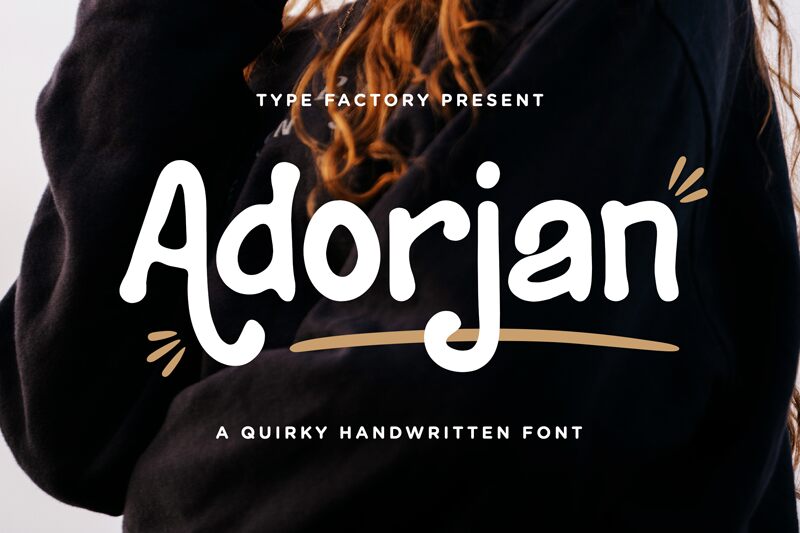
Adorjan font family by Typefactoryco includes 2 font styles. This handwritten font combines the casual and modern with a friendly and lively vibe. Suitable for multiple design projects, Adorjan is the quirky free font you have been looking for. Its creative style supports an informal and expressive appearance that suits a wide array of genres and themes.
Using this font is a genuine pleasure as it can be incorporated into branding projects, logo designs, visual identities, typography art, social media posts, and beyond. Adorjan can be used to create exceptional artworks for album covers, packaging projects, magazine covers, posters, and so much more!
Adorjan is a sweet and quirky handwritten font that adds a touch of whimsy to any project. Dainty and joyful, this free font is perfect for crafting neat cards, designing album covers, creating inspirational quotes, and enhancing café menus. It brings a personalized touch to greeting cards and any other design that could benefit from a light-hearted flair.